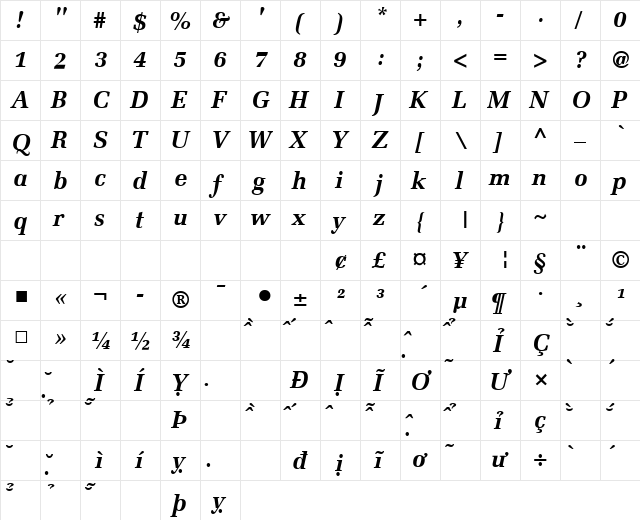
Design Context for VNI-Meli Typeface
VNI-Meli takes a measured approach to typography — its balanced proportions and neutral character make it a reliable workhorse for both digital and print work. The dynamic lean of this cut emphasises speed and emphasis in any layout. Its bold stroke weight gives it real presence on the page.
Pro Tip: Try VNI-Meli for annotation and caption copy alongside an upright companion — the contrast in angle creates a dynamic but ordered typographic system.